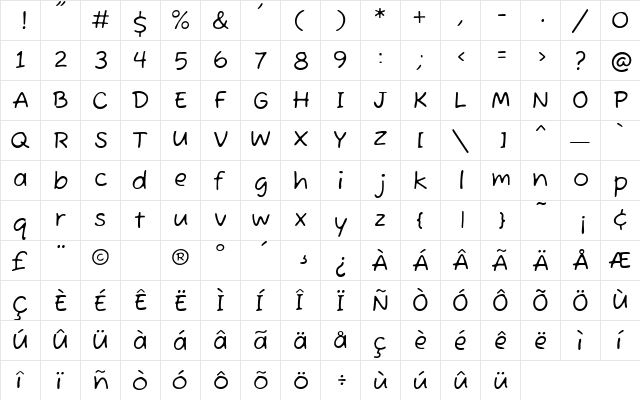
FuzzyBubblesROB Regular
Design Context for FuzzyBubblesROB Typeface
FuzzyBubblesROB trades formality for fun, with bouncy, characterful letterforms that bring warmth and energy to any project.
Font Pairing: Pairs well with a rounded or humanist sans for body copy, maintaining the friendly tone without relying on FuzzyBubblesROB to carry extended reading.
Pro Tip: Avoid using FuzzyBubblesROB for long passages of text — it works best for headlines, labels, and short calls to action.